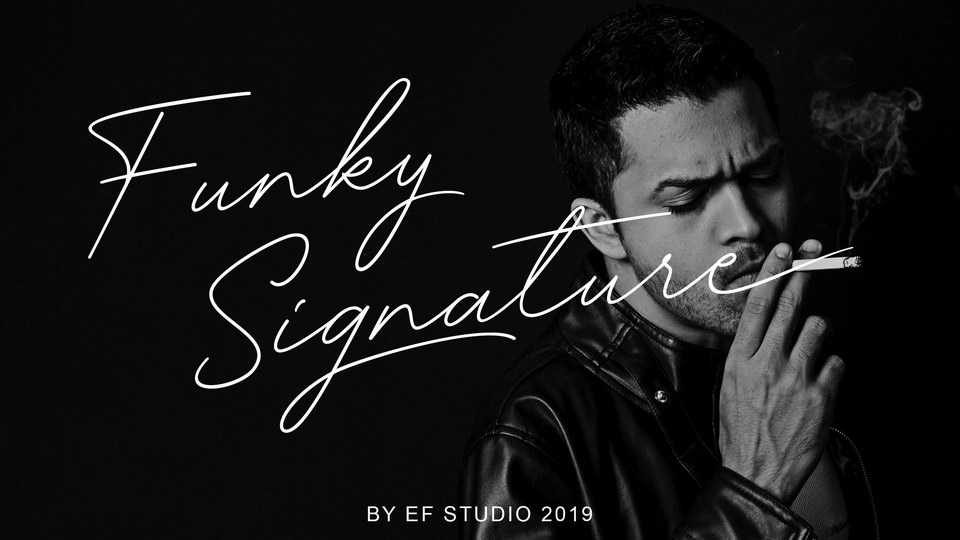
Download Funky Signature font, a handwritten signature script with a natural flow in the 80s style, perfect for personal branding, red wine labels, vodka labels, packaging, stationery, invitations, business cards, movie cover, and advertising.
Designer: Ef Studio